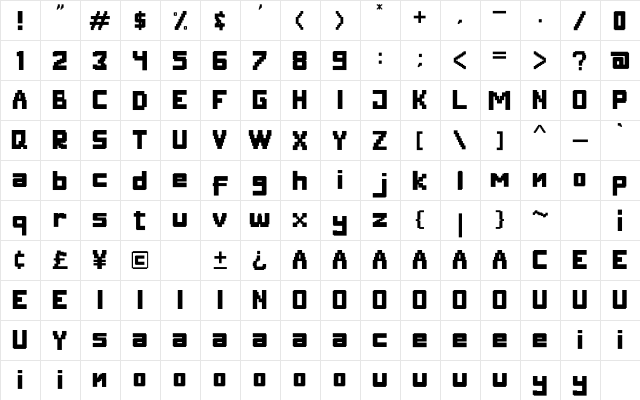
Digitizer Regular
| Foundry | DawnCreative.id |
| Designer | Fajar Rachmadi P |
Design Context for Digitizer Typeface
Digitizer channels digital-age aesthetics through its sharp, structured letterforms — ideal for brands that want to signal innovation.
Pro Tip: Use Digitizer in combination with a neutral sans for body text. Let it define the brand voice in headlines while keeping reading comfortable elsewhere.